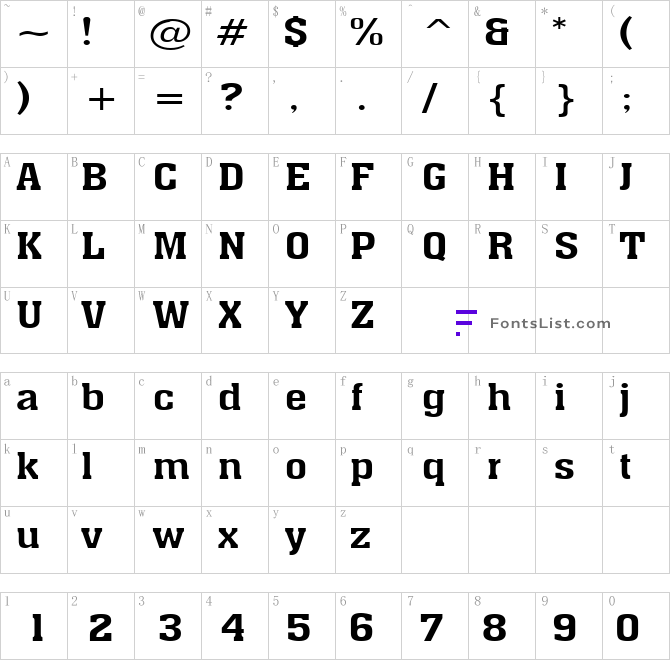
- Font Name:Ache Wide
Ache-Wide-Normal.ttf is a very beautiful artistic font, Ache-Wide-Normal.ttf is widely used in the design and printing of various books and pictures,Ache-Wide-Normal.ttf has a strong visual impact,Ache-Wide-Normal.ttf is a commonly used font in newspapers, magazines and books, and is used in posters, e-commerce Poster design, store design, logo design, font design and other fields.Ache-Wide-Normal.